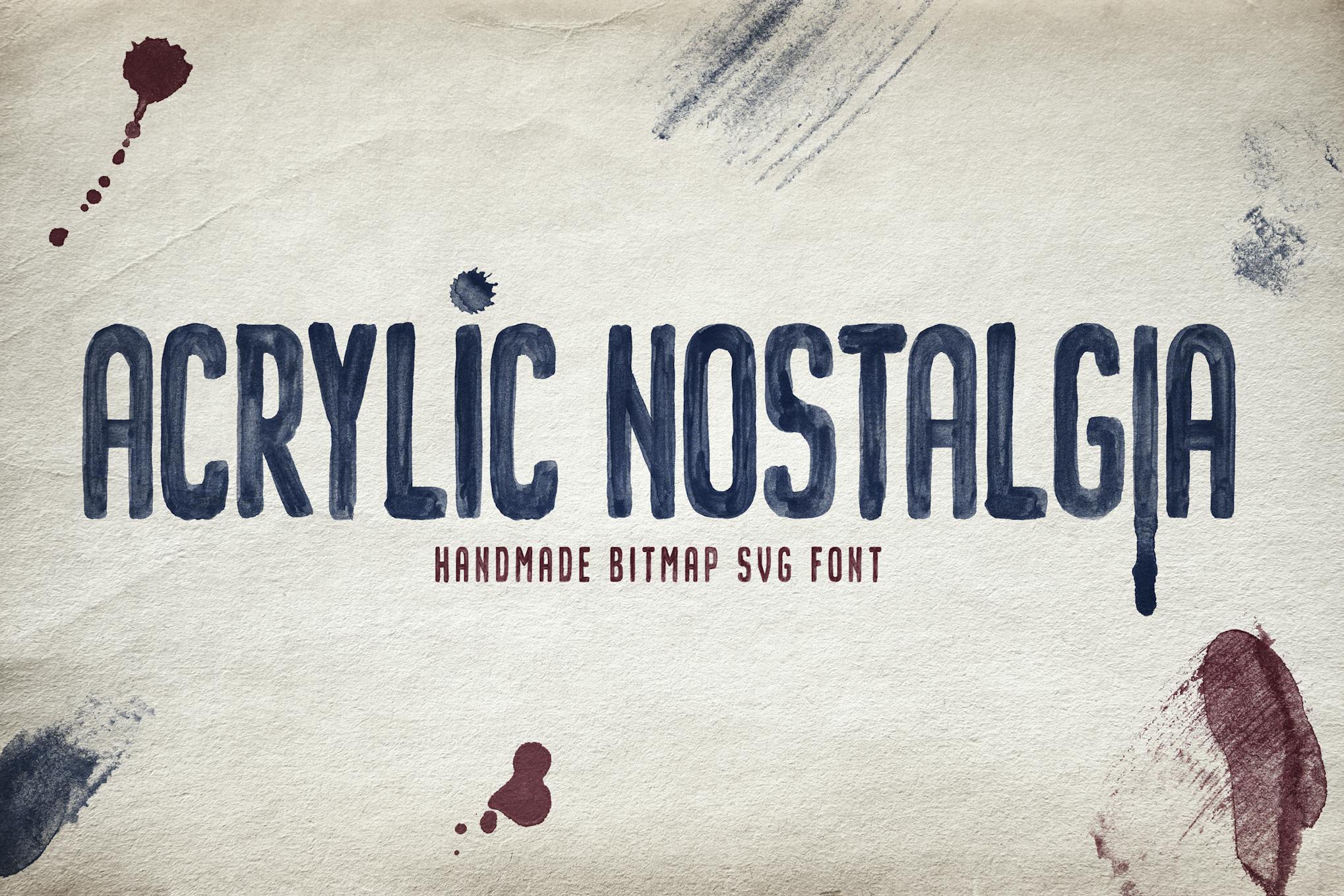
Acrylic Nostalgia SVG Font
Acrylic Nostalgia SVG Font paints vintage poster reproductions, retro album cover designs, nostalgic brand identities, handcrafted art exhibitions, memory scrapbook layouts, artistic greeting cards, vintage-inspired packaging, retro gaming interfaces, nostalgic social media graphics, artistic memoir covers, painted sign reproductions, and creative storytelling projects where textured paint effects and sentimental charm create emotionally resonant visual experiences.
This evocative typeface generates excitement through its perfect capture of hand-painted acrylic artistry combined with nostalgic emotional depth that creates typography reminiscent of cherished memories and artistic expression. Acrylic Nostalgia SVG Font transports viewers to simpler times with its authentic paint texture effects that evoke the warmth of handcrafted art and the emotional connection of personal memories. The font's sophisticated design approach incorporates realistic acrylic paint characteristics including brush strokes, texture variations, and organic paint flow while maintaining excellent readability through SVG optimization. Its distinctive character reflects the authentic charm of hand-painted signage and the emotional resonance of nostalgic artistry.
The Acrylic Nostalgia SVG Font family features comprehensive paint-inspired variations including multiple texture intensities, vintage color palettes reminiscent of different eras, and SVG scalability that preserves paint authenticity across all sizes. The collection includes varying brush stroke effects, paint drip elements, textural overlays that mimic natural paint application, and decorative paint splatters. Advanced SVG features enable customizable color mixing, transparency effects for realistic paint layering, and texture adjustments that maintain artistic authenticity while ensuring technical performance.
Creative designers and vintage enthusiasts consistently select Acrylic Nostalgia SVG Font Free Download for projects requiring typography that combines artistic paint effects with emotional storytelling power. This remarkable typeface excels in applications where creating emotional connections and evoking personal memories are essential for brand success. The font's nostalgic qualities make it particularly effective for retro brands, artistic projects, and campaigns targeting audiences who value authenticity, craftsmanship, and emotional connection to the past.
Whether you're designing vintage brand revivals, creating artistic marketing campaigns, developing memory-focused products, or crafting nostalgic digital experiences, Acrylic Nostalgia SVG Font delivers unmatched emotional authenticity. Its ability to convey warmth, craftsmanship, and sentimental value makes it invaluable for designers seeking typography that touches hearts and evokes cherished memories. The font's paint-inspired artistry ensures your designs will communicate the genuine emotion and handcrafted beauty that define exceptional nostalgic and artistic typography experiences.